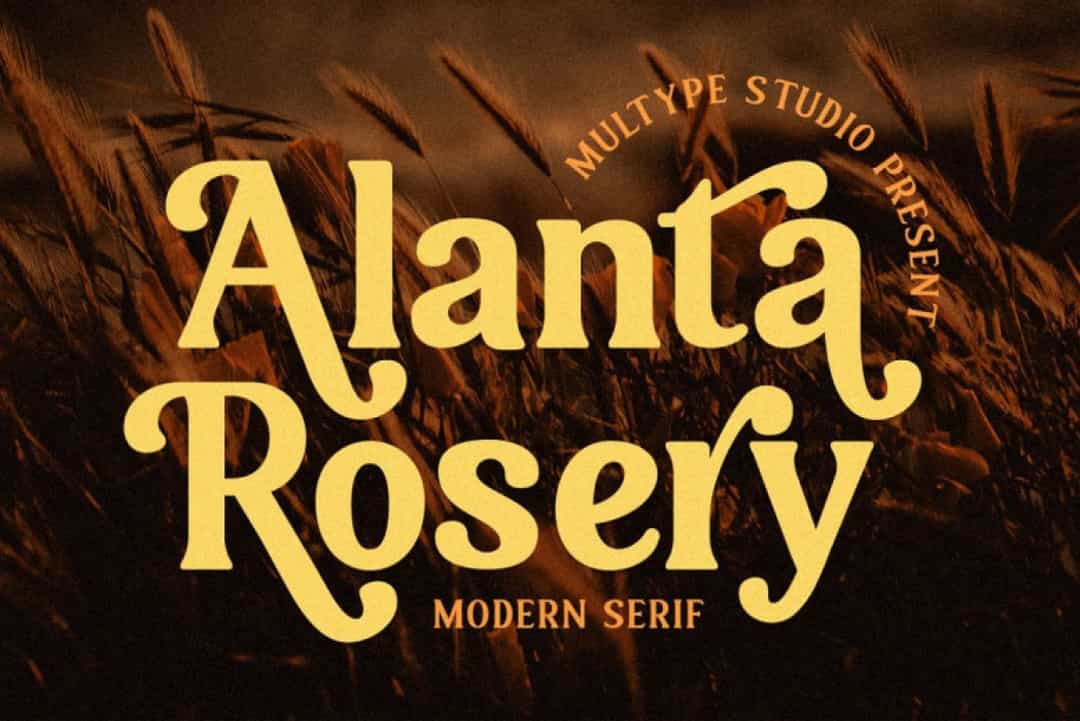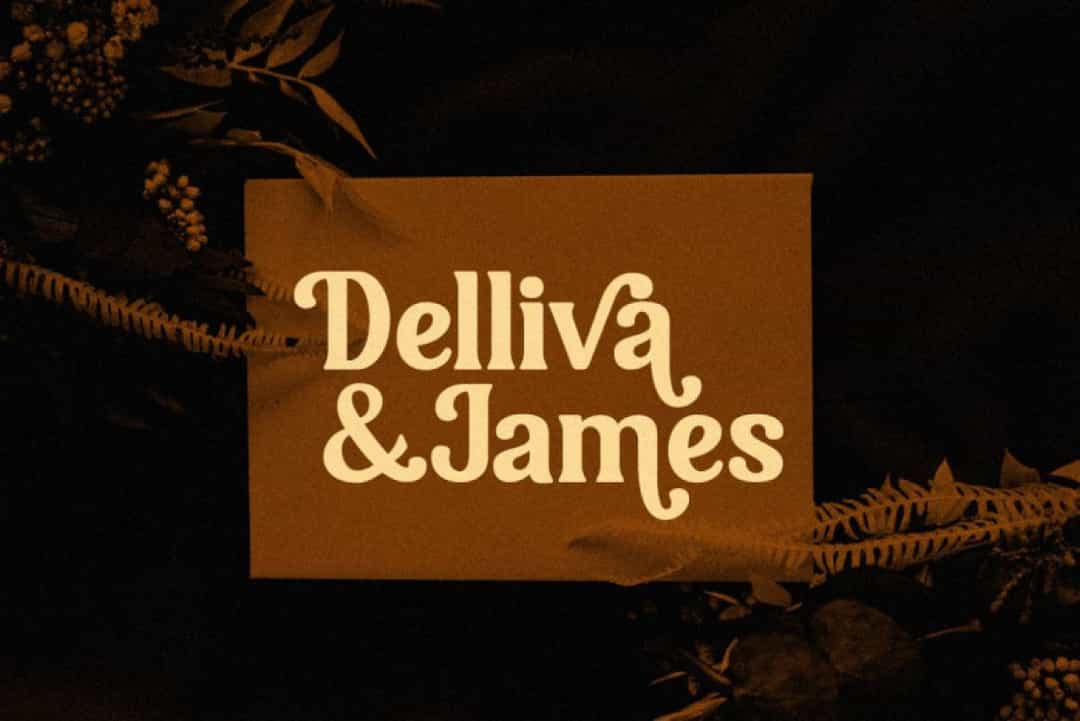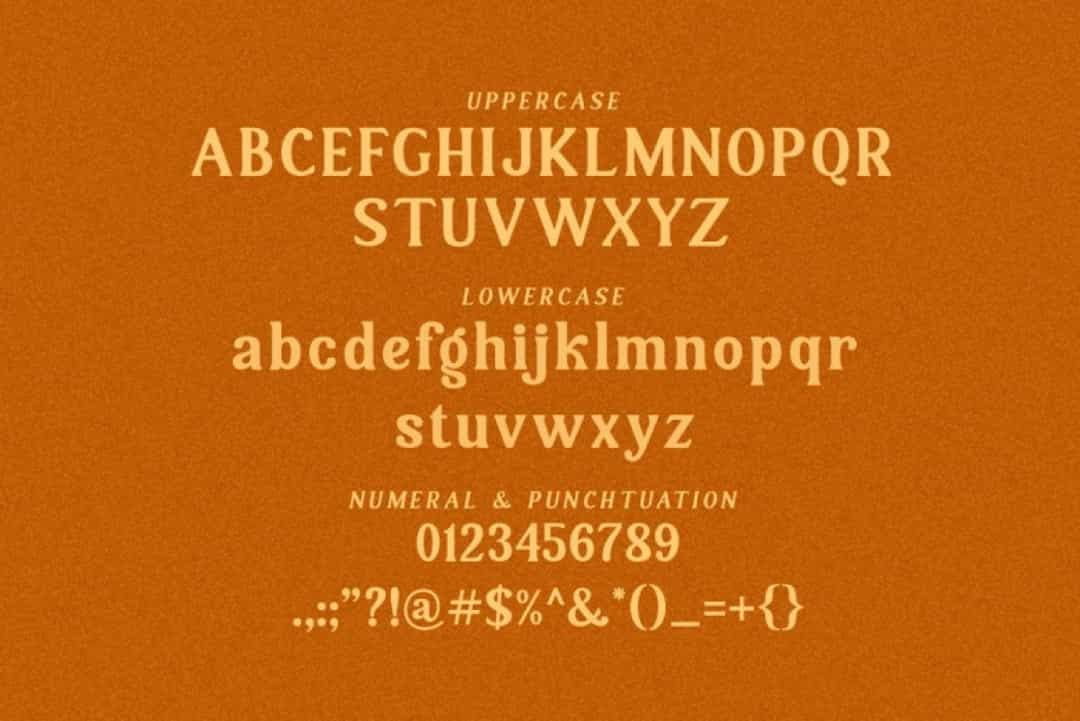
Alanta Rosery is a modern serif font. Alanta Rosery is perfect for branding, logos, social media, advertisements, product packaging, watermark, invitation, stationery, tshirt, prints, posters and more. This font is PUA encoded which means you can access all of the glyphs and swashes with ease!